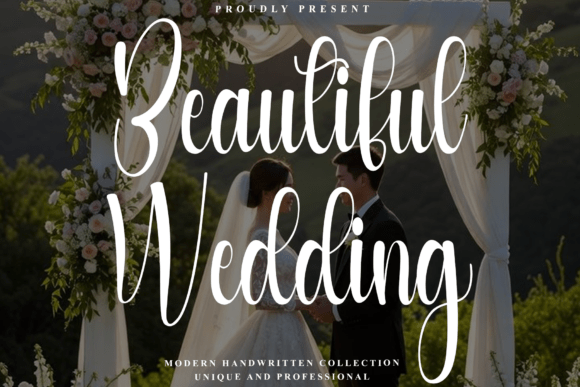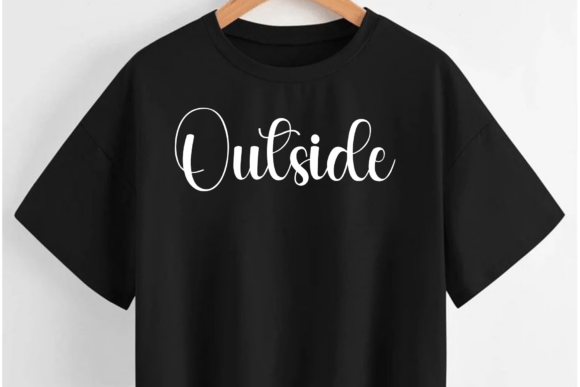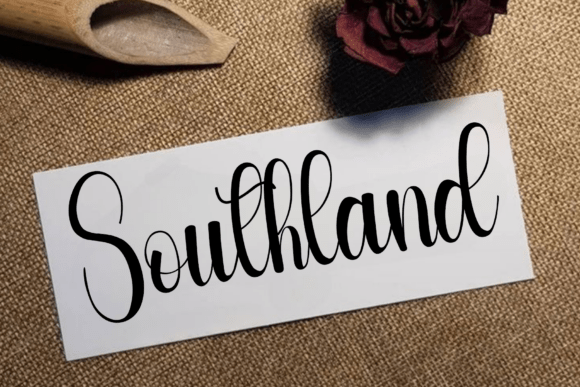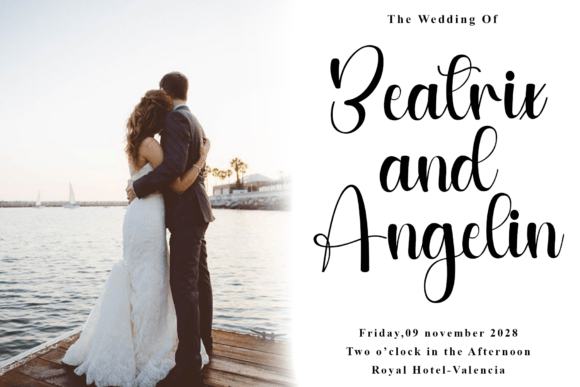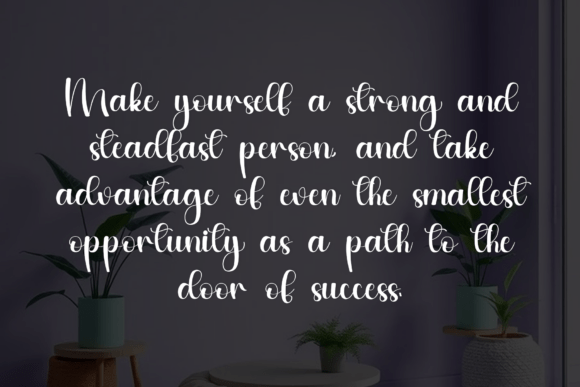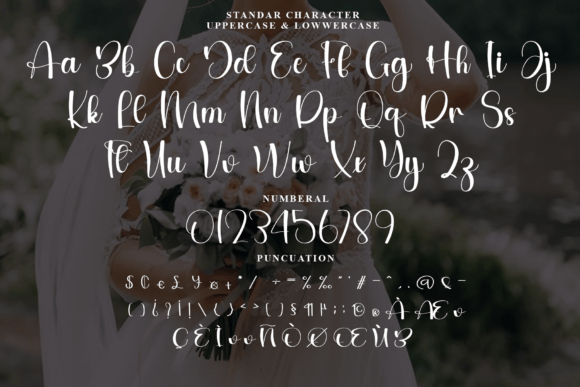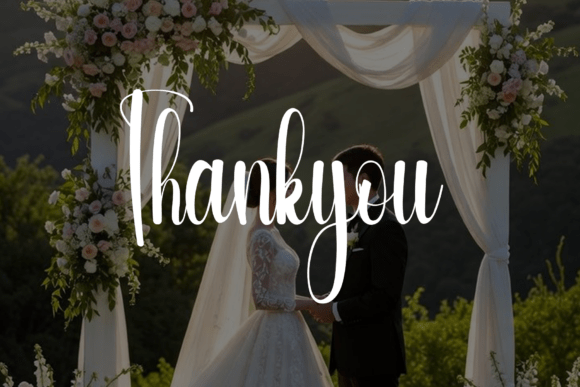
The Perfect Font for Your Perfect Day
As you sit with your partner, surrounded by swirling ideas and creative visions for your special day, one thing becomes clear: your wedding stationery is going to be a reflection of your love and commitment to each other. The fonts you choose will set the tone for the entire celebration, from the elegant invitations to the heartfelt social media quotes that capture the essence of your love story.
That’s why we’re excited to introduce you to the Beautiful Wedding Font, a stunning typeface designed to evoke the elegance and joy of your wedding day. With its tall, slender letterforms and graceful loops, this font is the perfect choice for designers looking to add a touch of sophistication and whimsy to their designs.
Whether you’re a seasoned designer or just starting out, the Beautiful Wedding Font is a valuable addition to your toolkit. Its unique blend of professional structure and artisanal charm makes it a versatile choice for a wide range of projects, from wedding invitations to boutique branding and beyond.
Key Features of Beautiful Wedding Font
- Unique Characteristics: Includes a range of beautiful, hand-drawn wedding-themed glyphs, such as wedding bells, hearts, and flowers.
Designer Review: Beautiful Wedding Font
Overall, I think Beautiful Wedding Font is a lovely addition to any wedding design project. Here are some of its strengths: ✨
- Beautiful calligraphy-style script that adds a touch of elegance to any design
- Highly customizable, with options for color, size, and font styles
- Works well for wedding invitations, save-the-dates, and other special occasion designs
However, I do have a few concerns: ⚠️
- May be too ornate for some designs, potentially overwhelming the overall aesthetic
- Could benefit from more font weights and styles to increase versatility
- May require additional design elements to balance out the font’s intricate details
Overall, I think Beautiful Wedding Font is a great choice for wedding designers looking for a unique and elegant script. While it may have some limitations, its strengths make it a valuable addition to any design toolkit.
The Beautiful Wedding Font is ideal for creating:
– Wedding invitations and programs
– Wedding stationery, such as save-the-date cards and thank-you notes
– Wedding logos and branding materials
– Wedding ceremony scripts and readings
Alternatives to Beautiful Wedding Font
Lobster Font is a modern, cursive font ideal for formal events like weddings. It has a classic touch and elegant feel that pairs well with traditional wedding invitations and stationery.
Comparison: Lobster Font has a more contemporary feel compared to Beautiful Wedding Font, which is more traditional. Lobster Font is also more versatile and can be used for various designs, not just weddings.
Pacifico Font is a beautiful, handwritten font that exudes a sense of sophistication and romance. It’s perfect for weddings with a beach or outdoor theme.
Comparison: Pacifico Font has a more relaxed, casual feel compared to Beautiful Wedding Font, which is more formal. Pacifico Font is also ideal for designs that require a sense of movement and fluidity.
What is the character set of the Beautiful Wedding Font?
The Beautiful Wedding Font includes a comprehensive character set, including Latin, Greek, and Cyrillic alphabets, as well as punctuation and special characters. The font also includes a range of ligatures and swashes to add a touch of elegance to your designs.